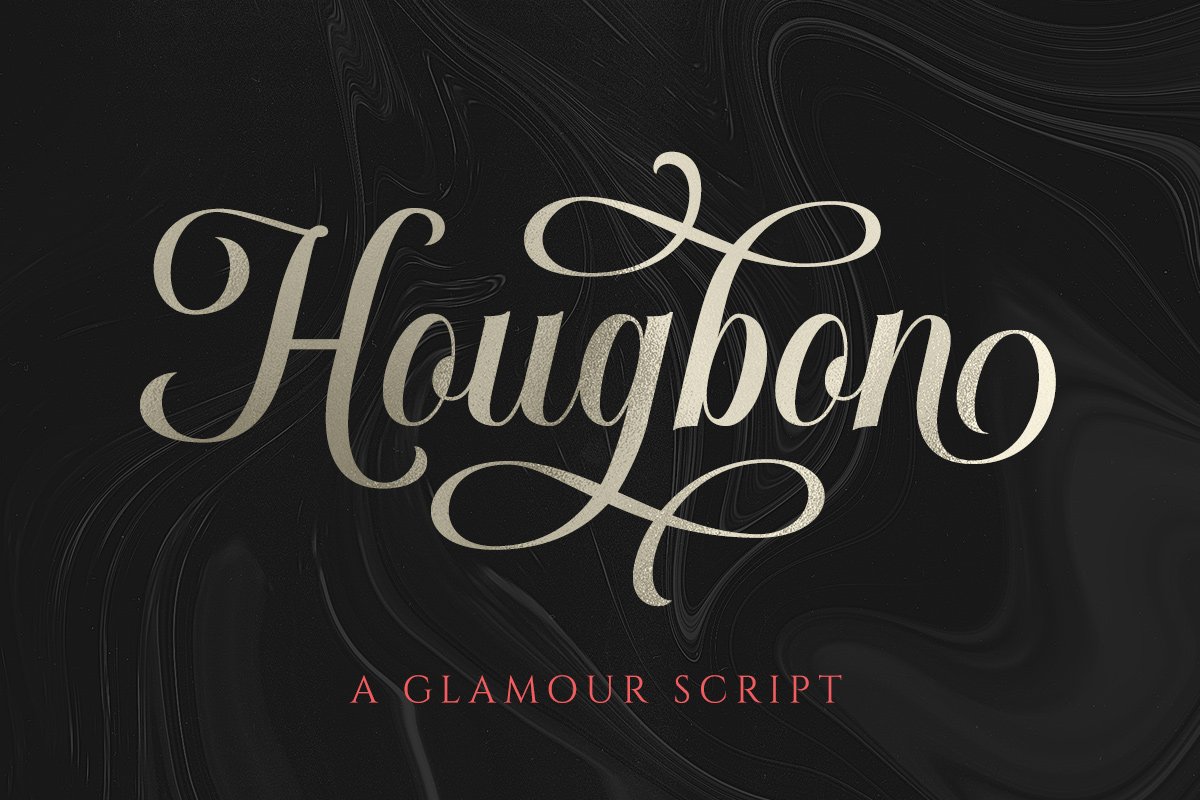
Hougbon Script Font
The Hougbon Script Font is a beautifully crafted typeface that brings a touch of elegance and personal flair to any project. Its smooth, flowing lines and natural letter connections make it an ideal choice for a wide array of applications, including sophisticated wedding invitations, luxury brand logos, and stylish product packaging. Designers will find it perfect for creating unique social media graphics, elegant greeting cards, and eye-catching photography watermarks that stand out with a handwritten feel. This font has a timeless quality that works equally well for both modern and classic designs, allowing you to add a polished yet personal touch to your work.
What makes the Hougbon Script Font so exciting is its effortless grace and genuine personality. Unlike many stiff or overly stylized script fonts, Hougbon feels organic and truly handcrafted. The ligatures and stylistic alternatives flow seamlessly, creating a natural rhythm that mimics real handwriting. This subtle sophistication gives your text a powerful voice, communicating a sense of luxury, authenticity, and heartfelt emotion. It's more than just a font; it's an expressive tool that can transform a simple layout into a piece of art, capturing the attention of your audience with its refined charm and exquisite detailing. Its distinct character ensures that your brand or message will be remembered.
The Hougbon Script Font family typically comes with a comprehensive set of characters, including a full range of uppercase and lowercase letters, numbers, and punctuation. What truly sets it apart are the extensive OpenType features, such as ligatures and swashes, which provide designers with the ability to customize and enhance the flow between letters. These features enable you to create truly unique and polished typography, making every design feel custom-made. The font also often includes multilingual support, ensuring its versatility for a global audience and for various creative needs. This level of detail makes it a go-to choice for professionals looking for a font that offers both beauty and functionality.